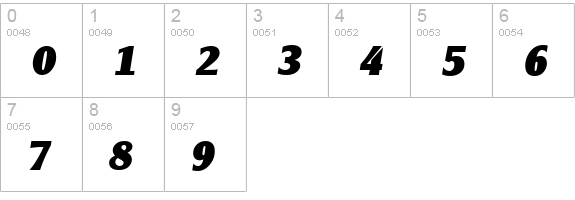
ClearGothicSerial-Heavy-Italic is a heavy, high-impact, italic variant in the ClearGothicSerial typeface family \xE2\x80\x94 well suited to high-impact headlines, posters, and display advertising.
ClearGothicSerial-Heavy-Italic is a bold and stylish font that exudes sophistication and elegance. Its slanted italic design adds a touch of modernity and flair to any project. The heavy weight of this font gives it a strong presence, making it perfect for headlines, titles, and other prominent text. This font is not only visually striking but also highly versatile, suitable for a wide range of design applications. Whether you're working on a branding project, editorial design, or website layout, ClearGothicSerial-Heavy-Italic will make a bold statement and grab the attention of your audience. The best part? ClearGothicSerial-Heavy-Italic is completely free to download at FontsMarket.com. This means you can elevate your designs without breaking the bank. Don't miss out on this opportunity to add a touch of elegance and sophistication to your projects with ClearGothicSerial-Heavy-Italic. Download it today and take your design to the next level.